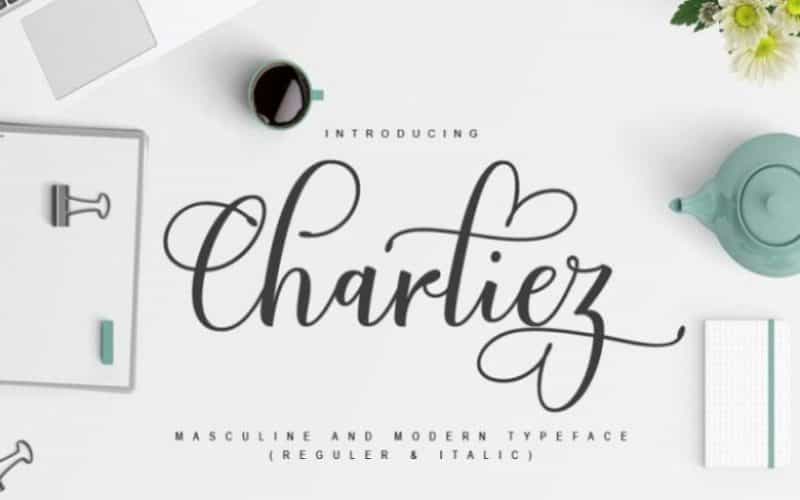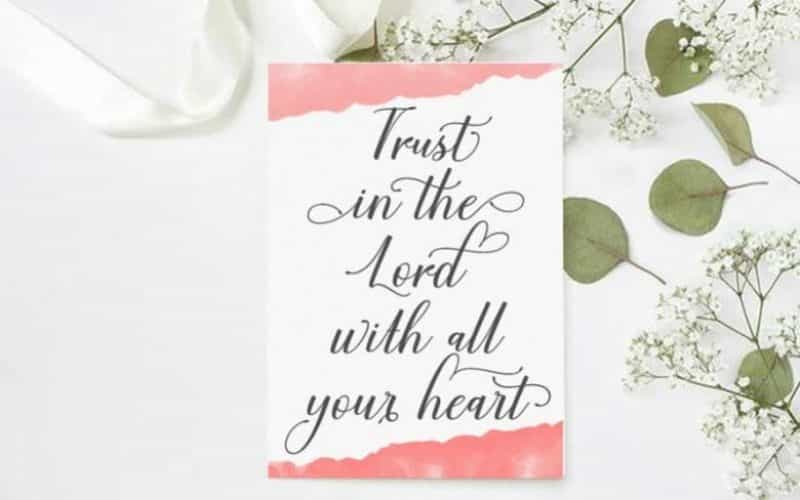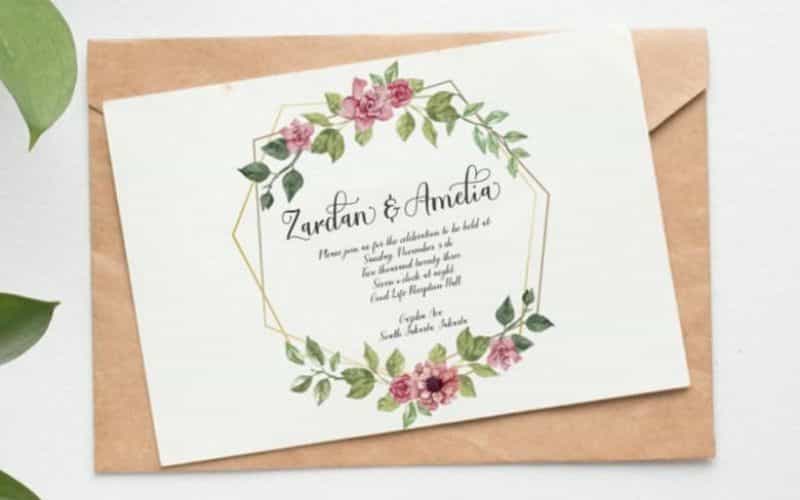
The new Charliez Script style is here with the modern hand scratches, and you can use this font for your work easily and simply because it has many features including a full set of letters small and large, various kinds of punctuation, numbers, and multilingual support. If you are interested in this font, you are welcome to use it.